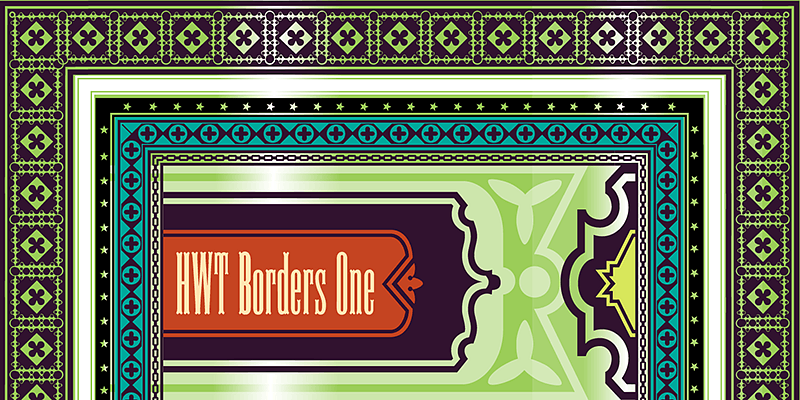
HWT Borders One contains decorative borders and corner pieces based on 19th century wood type catalogs. These can be modularly assembled in almost any size dimensions needed.
Hamilton Wood Type Collection, established in 2012, is a joint venture between P22 Type Foundry and the Hamilton Wood Type & Printing Museum. The founding goal was to safeguard a typographic era and make classic wood type designs available as digital fonts for modern audiences. This historical collection of serif revivals, sans reinterpretations, decorative embellishments, script reclamations, and original chromatic designs is stunningly relevant and usable for any imaginative design practice.